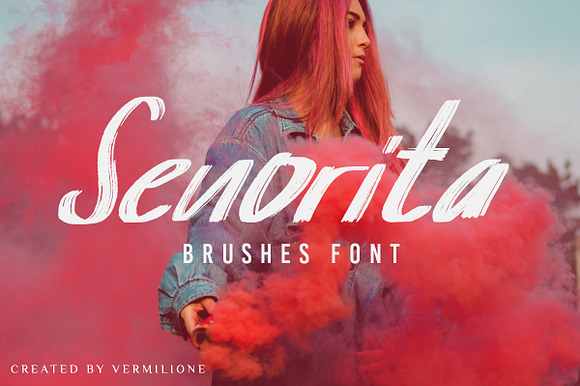
Senorita Brushes Font
Senorita Brushes Font by saystudio is a font selected for branding, posters, packaging, typography.
Why Senorita Brushes Font is worth a look
Senorita Brushes Font by saystudio fits naturally into Branding, posters, packaging, typography.